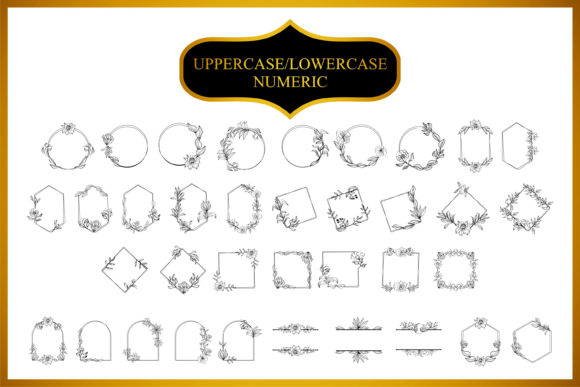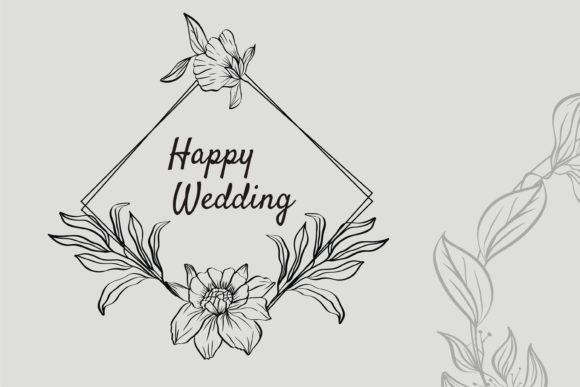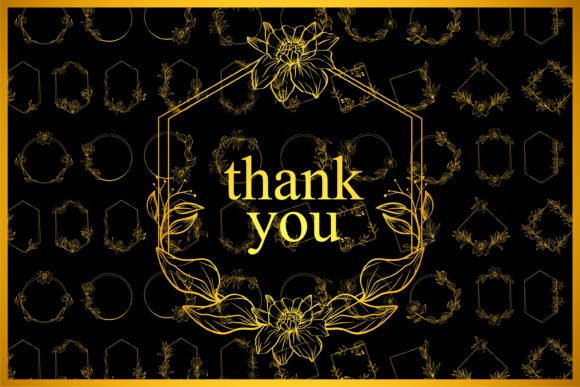
Florila Frame Font
About Florila Frame Font
Florila Frame is a delightful and elegant dingbat font designed to help you generate colorful and creative designs by typing capital and small letters as well as numbers. Its flower-centered frame design makes it perfect for projects that need a touch of elegance and a floral charm, with its many elegant and intricate images, the results will be nothing short of exquisite. FlorilaFrame is a versatile and intuitive font, making it easy to use for a wide range of projects, from designing delicate and lovely business cards to adding a touch of chic and cheer to a book cover design or other visual material.
One of the best things about FlorilaFrame is its beautiful and detailed frame design. The many flower and decorative images make FlorilaFrame unique and memorable for projects that need a touch of elegance and a floral charm. Whether you’re designing a business card for a high-end florist or adding a touch of nature to a decorative pattern or other visual element, FlorilaFrame will add a touch of grace and personality to your design.
Another great thing about FlorilaFrame is how easy it is to use. With a few keystrokes, users can create a wide range of colorful and memorable designs. The many detailed and intricate flower-focused images make FlorilaFrame easy to read and use, while its versatile design makes it perfect for a wide range of projects. Both its small and large fonts come with clear, concise instructions to help users get started quickly.
In addition to its elegant design and cheerful beauty, FlorilaFrame is also just great design. Its many decorative and flower-centered images make it a perfect option for projects that need a touch of elegance and a floral charm. Whether you’re designing a business card for a high-end florist or adding a touch of nature to a decorative pattern or other visual element, FlorilaFrame will add a touch of grace and personality to your design.
Overall, FlorilaFrame is a spectacular and memorable font that can help you create colorful and creative designs. Whether you’re designing a business card for a high-end florist or adding a touch of nature to a decorative pattern or other visual element, FlorilaFrame’s many elegant and intricate images make it an excellent option for projects that need a touch of sophistication, elegance and a floral charm.